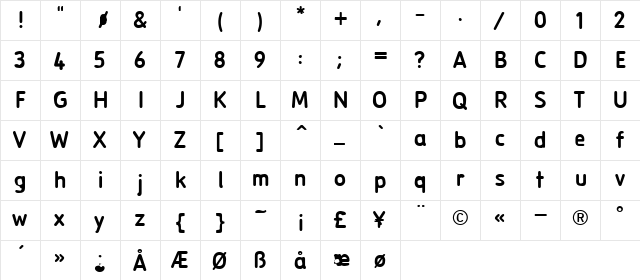
St宧korv Regular
St宧korv takes a measured approach to typography — its balanced proportions and neutral character make it a reliable workhorse for both digital and print work.